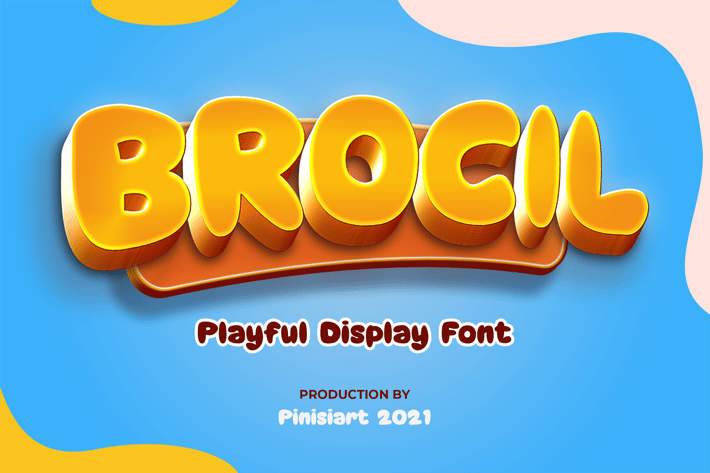
BROCIL - kids font
Cute and friendly, with playful attitude. Easy to read and suits well on big sized poster.
Suit perfectly for animal world children books market, online games, stationary, school supplies font, poster, movie title, youtube covers, youtube thumbnails, social media page covers and so on...